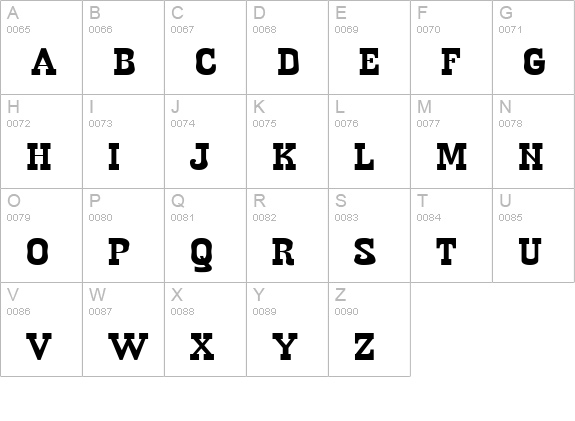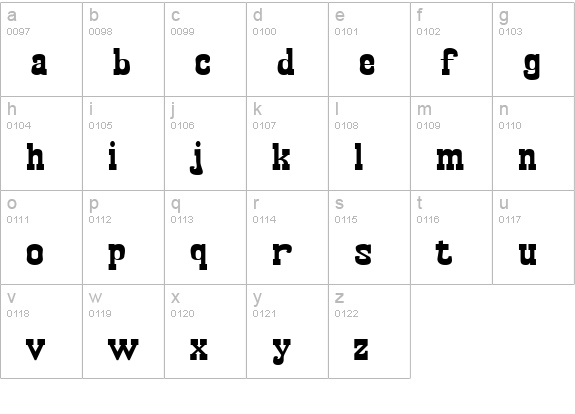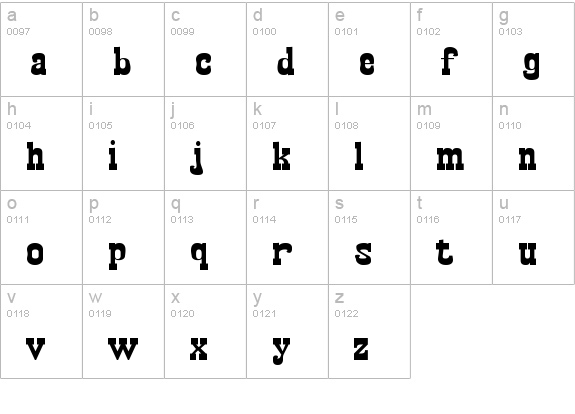
Egipet Bold Font Details
Egipet Bold is a strong, high-contrast variant in the Egipet typeface family \xE2\x80\x94 well suited to headlines, attention-grabbing titles, and strong calls-to-action.
Introducing Egipet Bold font, a captivating typeface that exudes strength and elegance. This bold and confident font is perfect for making a statement and grabbing attention. Its sleek and distinctive letterforms command the viewer's gaze, making it ideal for headlines, logos, and branding projects. Egipet Bold font strikes the perfect balance between modernity and timeless appeal. Its clean and sharp serifs add a touch of sophistication, while its bold weight conveys power and authority. The careful attention to detail in each glyph ensures legibility and readability across various design applications. But what sets Egipet Bold font apart is that it is freely available to download at FontsMarket.com. Yes, you heard it right! This exceptional font can be yours without spending a dime. Now, you can elevate your designs without breaking the bank. Whether you're a professional designer or a passionate hobbyist, this free font is a valuable addition to your typographic arsenal. Egipet Bold font's versatility knows no bounds. From print to digital, it shines on posters, advertisements, websites, and social media graphics. Its bold presence demands attention, making it an excellent choice for headlines, banners, and eye-catching titles. With its broad language support, you can easily communicate your message to a global audience. So, why wait? Discover the power of Egipet Bold font today and download it for free at FontsMarket.com. Unleash your creativity and let this remarkable font elevate your designs to new heights. With Egipet Bold font, you have the perfect tool to make a lasting impression.